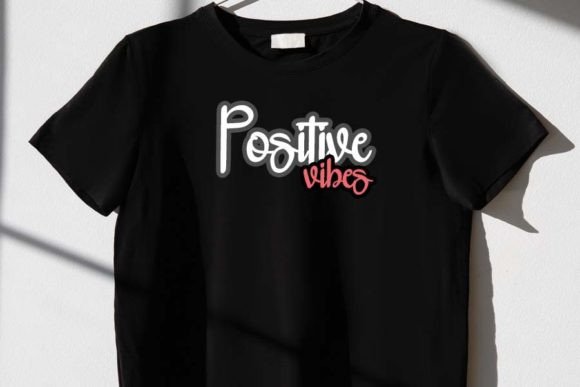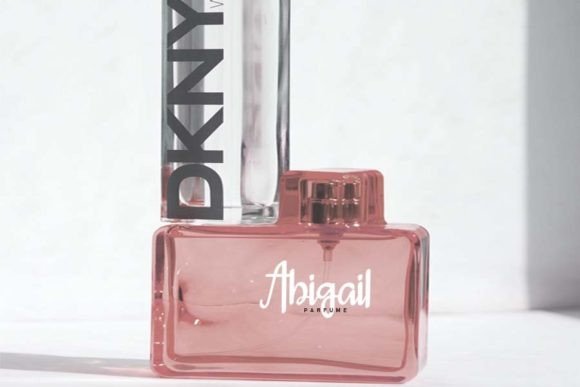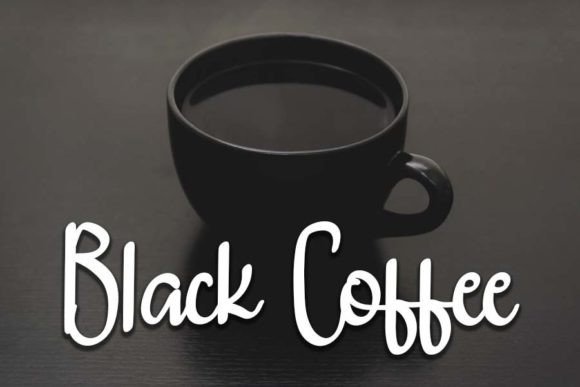
Dynamitte Font: Elevate Your Creativity with Elegance
In the world of digital design, fonts play a crucial role in bringing creative ideas to life. Among the numerous fonts available, Dynamitte stands out as a magical handwritten font that adds a touch of elegance to any project. Whether you’re a designer, crafter, or DIY enthusiast, Dynamitte is the perfect choice for turning your creative ideas into true pieces of art.
The Charm of Dynamitte Font
Dynamitte is a carefully crafted handwritten font that exudes elegance and sophistication. Its unique and flowing script makes it perfect for a wide range of creative projects, from Instagram posts to calligraphy scripts for DIY projects. The font’s magical touch adds a whimsical feel, making it ideal for designers and crafters who want to add a personal touch to their work.
Perfect for Instagram and Social Media
In today’s digital age, Instagram and social media platforms have become essential channels for creative expression. Dynamitte font is specifically designed to make your Instagram posts, stories, and bio stand out from the crowd. Its elegant and cursive script adds a touch of sophistication, making your content more engaging and visually appealing.
Ideal for Calligraphy and DIY Projects
Dynamitte font is not just limited to digital design; it’s also perfect for calligraphy and DIY projects. Whether you’re creating handmade cards, invitations, or art pieces, this font will add a touch of elegance and whimsy to your work. The font’s flowing script and magical touch make it ideal for creating beautiful calligraphy pieces that will leave a lasting impression.
Key Features of Dynamitte Font
- Handwritten script: Dynamitte font features a beautiful handwritten script that’s perfect for adding a personal touch to your creative projects.
- Elegant and sophisticated: The font’s elegant and sophisticated design makes it perfect for a wide range of creative projects, from digital design to calligraphy and DIY projects.
- Magical touch: Dynamitte font has a unique magical touch that adds a whimsical feel to your creative projects.
Tips for Using Dynamitte Font
- Experiment with different colors: Dynamitte font looks great in a variety of colors, so don’t be afraid to experiment and find the perfect color for your project.
- Mix and match with other fonts: Dynamitte font pairs well with other fonts, so try mixing and matching it with different fonts to create a unique look.
- Use it for headings and titles: Dynamitte font is perfect for headings and titles, so use it to add a touch of elegance to your creative projects.
Dynamitte font is a magical handwritten font that adds a touch of elegance to any creative project. Whether you’re a designer, crafter, or DIY enthusiast, this font is perfect for turning your creative ideas into true pieces of art. With its elegant and sophisticated design, magical touch, and ease of use, Dynamitte font is a must-have for anyone looking to elevate their creativity.